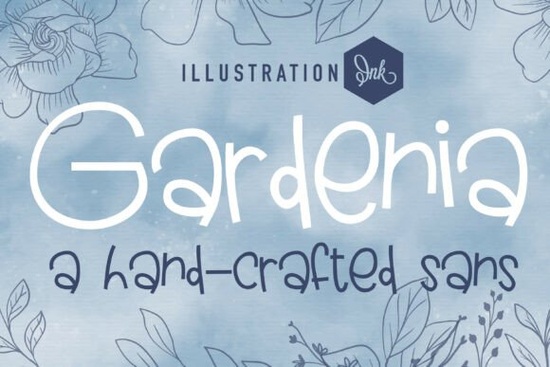
If you've been searching for a hand-drawn font that feels gentle, organic, and effortlessly stylish, this slender display typeface deserves a spot on your shortlist. The Gardenia Font features soft, casual letterforms that look like they were sketched with a real pen on textured paper. Whether you're designing wedding invitations, building a boutique brand, or creating social media graphics, Gardenia brings a quiet warmth that's hard to replicate with standard fonts.
What Kind of Projects Is Gardenia Font Best Suited For?
Gardenia was designed with a specific aesthetic in mind slow-living, botanical, and minimalist. Its lightweight letterforms and asymmetrical loop variations give it a hand-crafted look that works beautifully across a range of creative projects, including:
- Wedding stationery headers save-the-dates, invitation suites, and RSVP cards
- Artisanal cosmetic and skincare labels think small-batch soaps, serums, and lip balms
- Boutique floristry logos and floral shop branding
- Organic candle packaging and eco-friendly product lines
- Social media quote graphics for lifestyle and wellness accounts
- Print-on-demand designs for journals, tote bags, and greeting cards
If your brand or project leans toward natural, handmade, or earthy aesthetics, Gardenia fits right in. Its organic pen-to-paper ink flow feels authentic without looking messy a balance that's surprisingly hard to find in display typefaces.
Does Gardenia Font Work Well for Logos and Branding?
Yes, especially if you're going for a soft, approachable look. The slender weight and casual geometry make Gardenia a strong choice for wordmark logos in industries like wellness, beauty, floristry, and handmade goods. Pair it with a clean sans-serif for body text, and you'll have a cohesive brand identity that feels polished but personal.
That said, Gardenia is a display font meaning it's designed for headlines and short text, not paragraphs. Use it where you want visual impact: logos, headers, packaging titles, and hero text on your website or storefront.
How Does Gardenia Compare to Other Hand-Drawn Display Fonts?
Gardenia sits in a sweet spot between casual and refined. If you're browsing through other options in the display fonts category, here's how it stacks up against a few alternatives worth considering:
- Fancy Scribble This one leans more playful and expressive, with bolder strokes. It works well for kids' products or fun branding, but it doesn't carry the minimal, botanical feel that Gardenia does.
- Block Riot A heavier, more industrial display font. If your project needs bold impact and strong presence, Block Riot takes a completely different direction from Gardenia's delicate aesthetic.
- Teachers Birthday Whimsical and cheerful, this font is great for party invitations and classroom projects. It's more novelty-focused compared to Gardenia's refined organic style.
- Weird Vault An unconventional choice for designers who want something edgy and experimental. It's a fun typeface to explore, but it serves a very different creative purpose.
The key difference with Gardenia is its restraint. It doesn't try to grab attention with bold strokes or quirky shapes instead, it draws you in with subtlety. For the right project, that quiet confidence makes all the difference.
What Fonts Pair Well With Gardenia?
Because Gardenia is a slender display font, it pairs best with typefaces that offer contrast in weight or structure. Here are a few approaches:
- A clean geometric sans-serif for body copy this keeps your layout readable while letting Gardenia shine in headers.
- A light serif font if you want a more editorial, magazine-style feel across your design.
- A secondary script font used sparingly avoid pairing it with another hand-drawn font, as competing organic styles can feel cluttered together.
The goal is to give Gardenia room to breathe. Let it be the most expressive typeface in your layout, and keep everything else supporting and structured.
Is Gardenia a Good Choice for Print-on-Demand Sellers?
Absolutely. If you sell on platforms like Etsy, Redbubble, or your own Shopify store, a font like Gardenia can help your products stand out in crowded marketplaces. Its botanical, artisan feel appeals to buyers looking for unique, handmade-style designs especially in niches like:
- Wedding and bridal products
- Plant lover and gardener gifts
- Self-care and wellness journals
- Minimalist home décor prints
Quick Checklist Before You Start Designing With Gardenia
- ✅ Use it for display or headline purposes, not long paragraphs of text
- ✅ Test it at multiple sizes slender fonts can lose readability when scaled too small
- ✅ Pair it with a high-contrast companion font for body copy